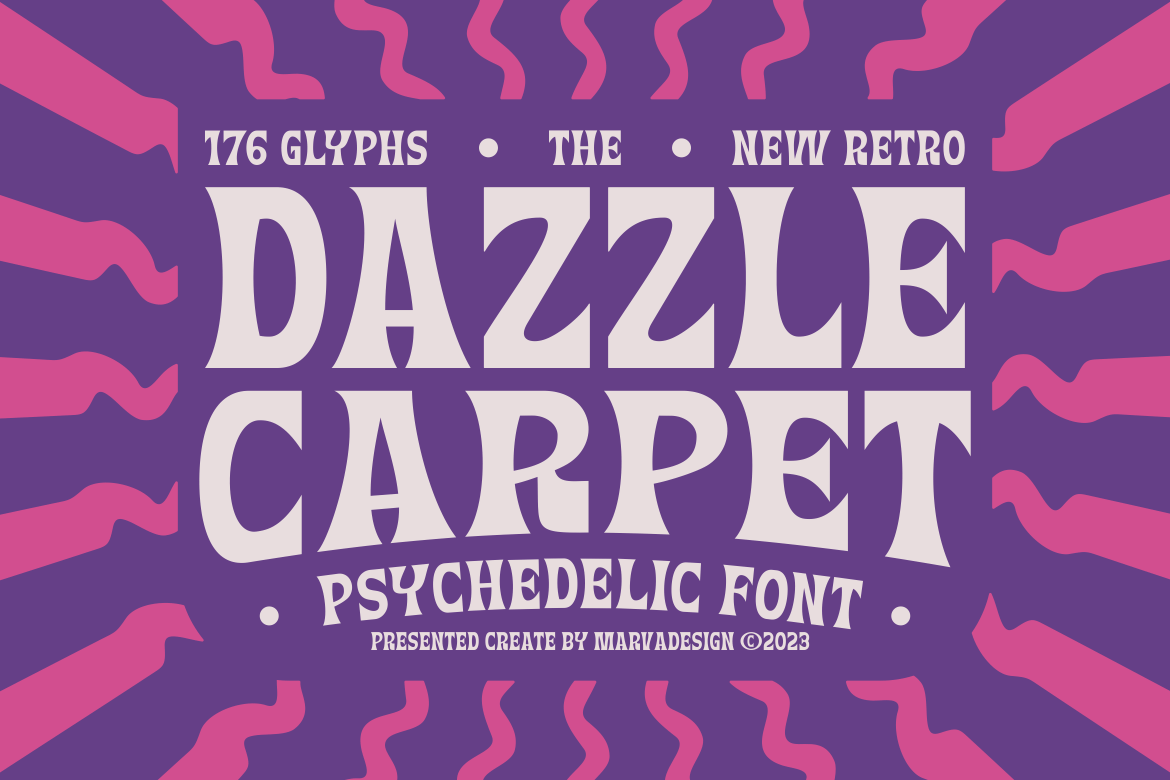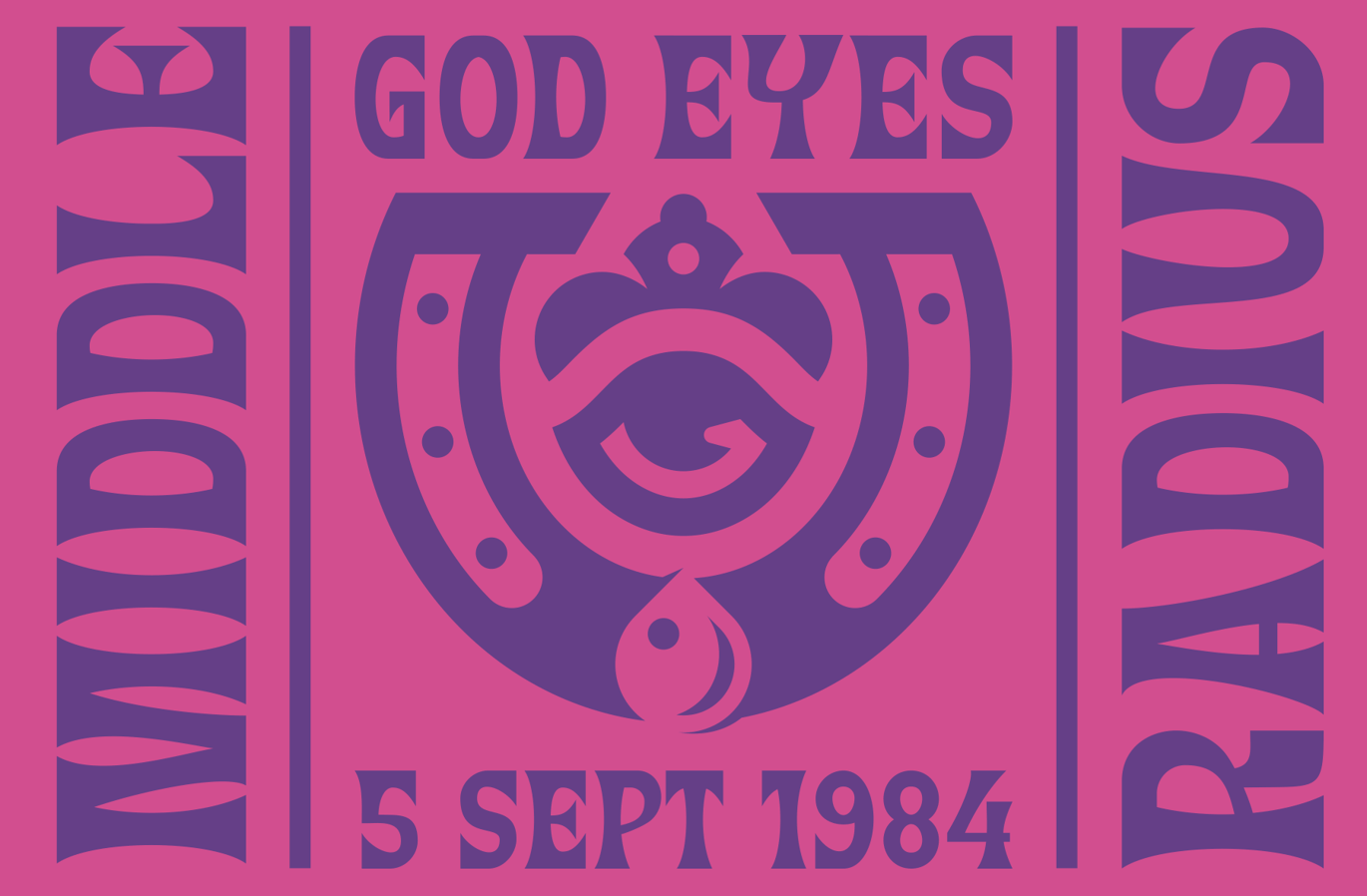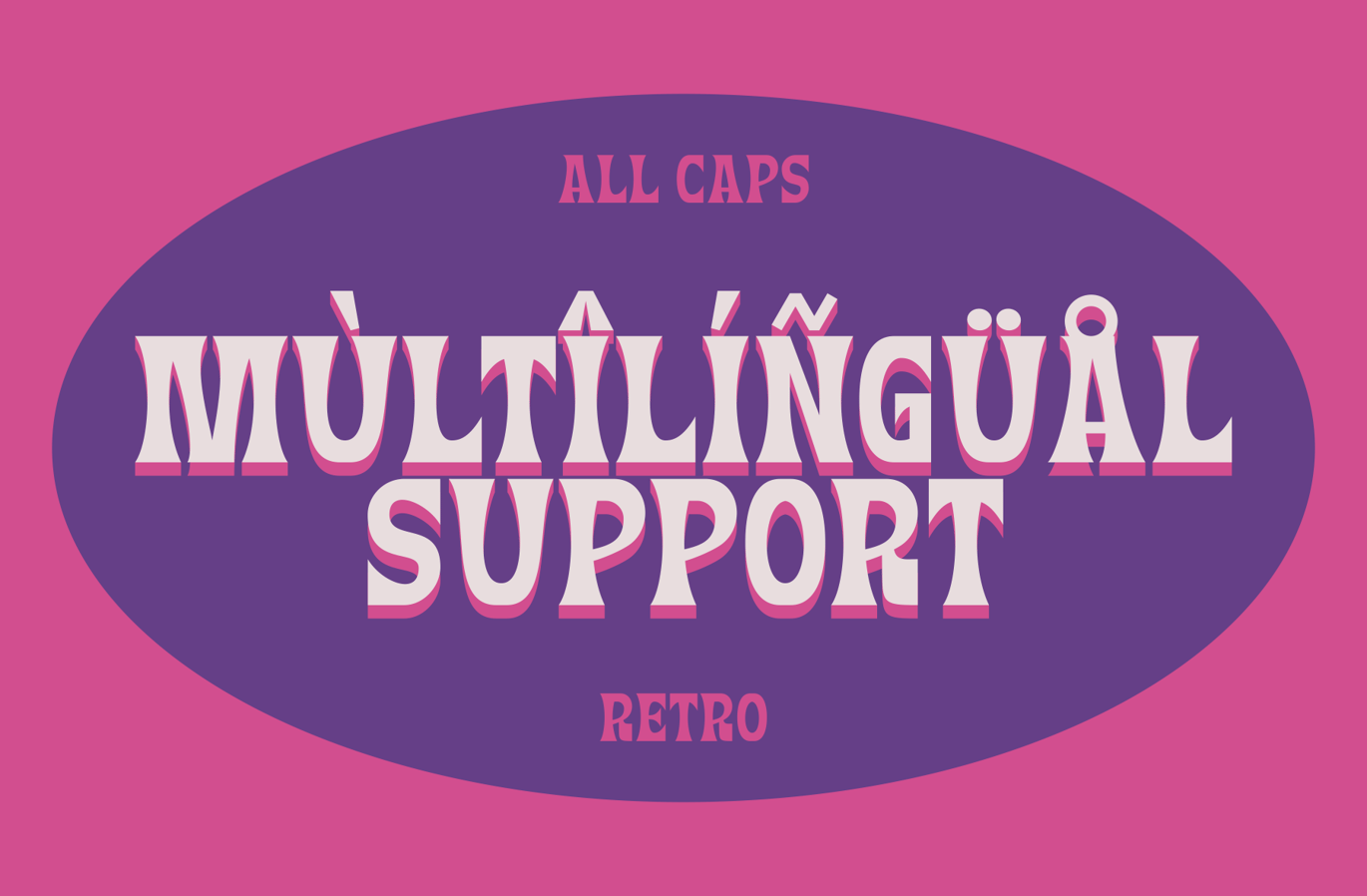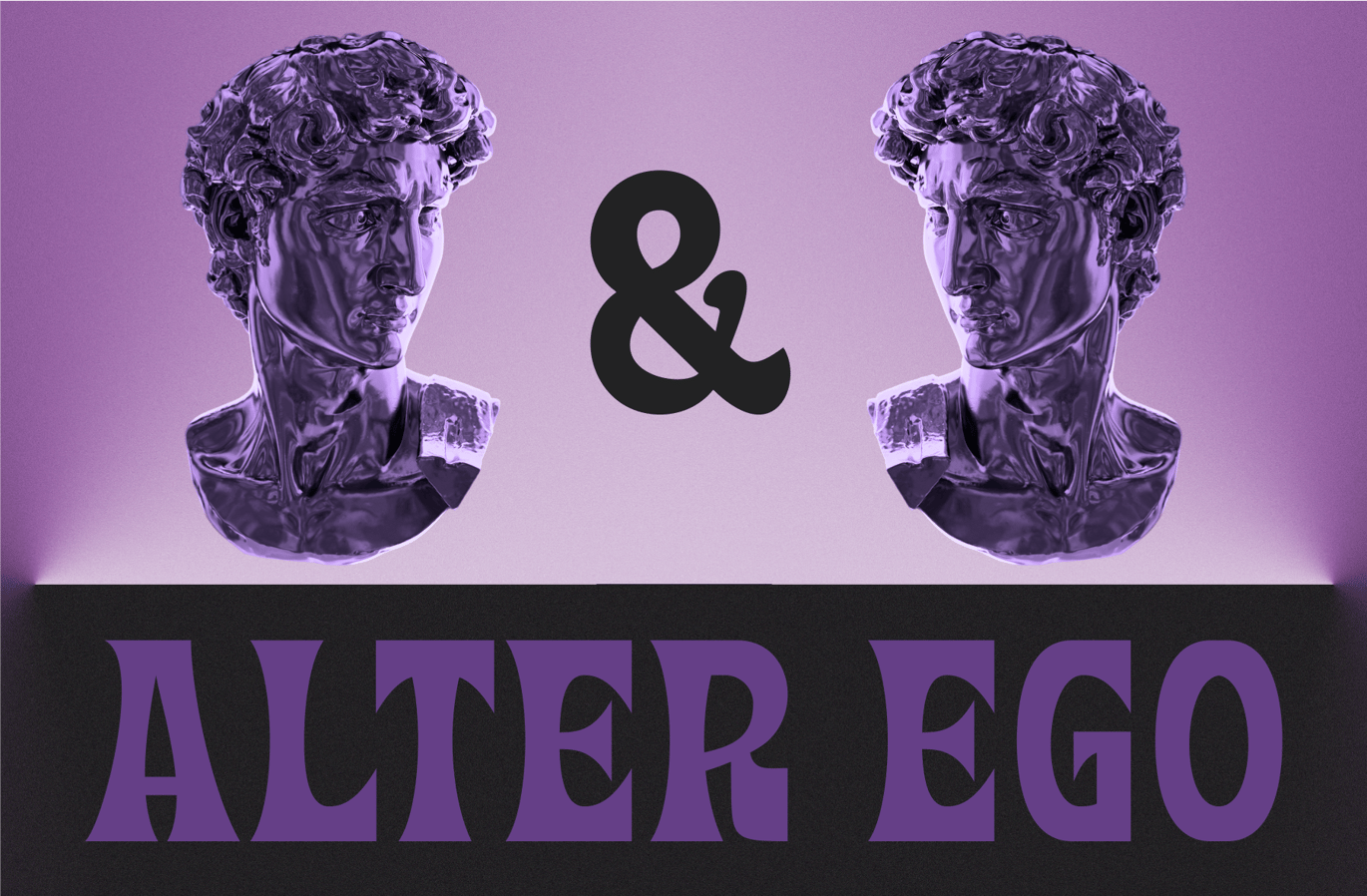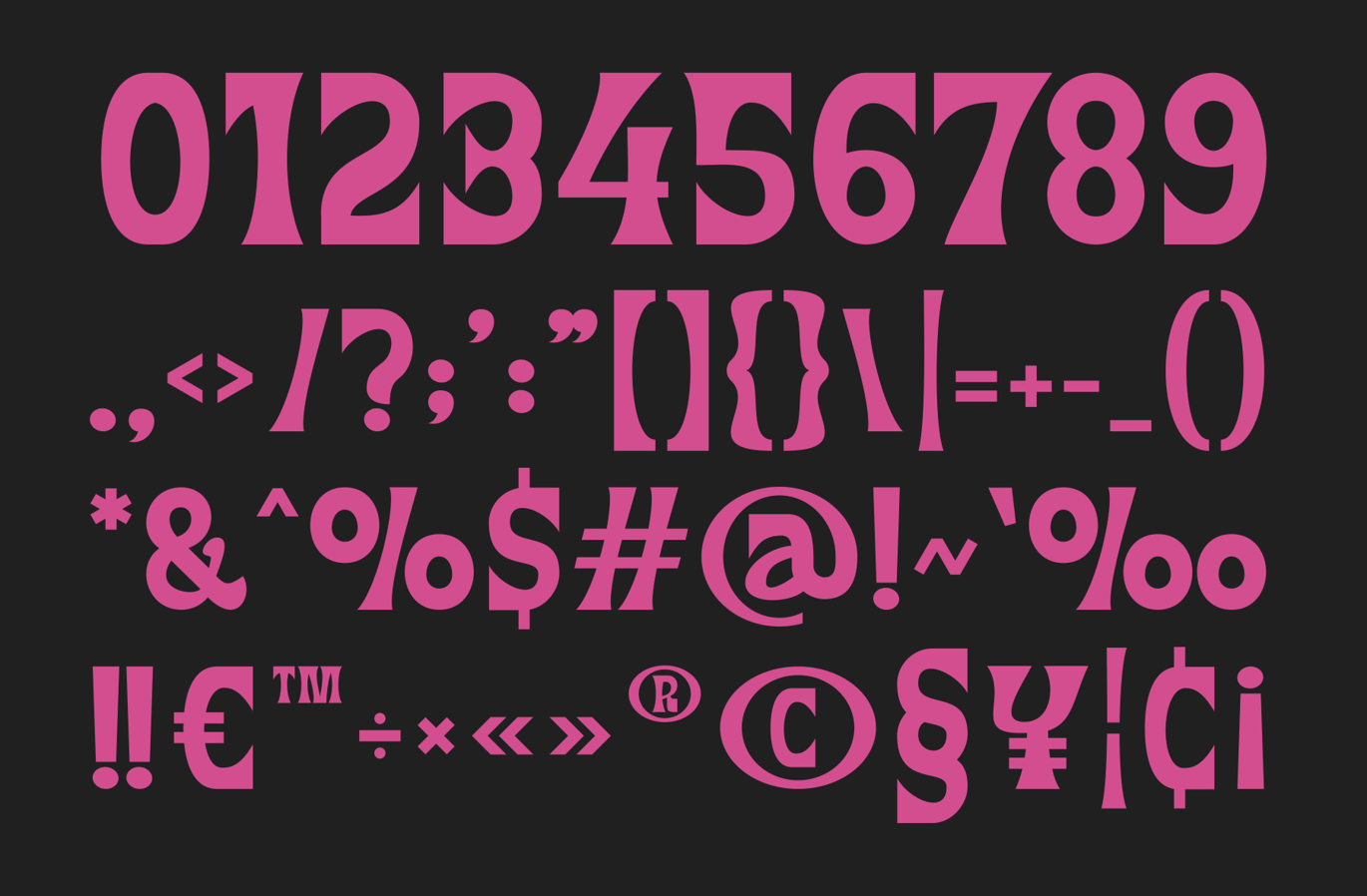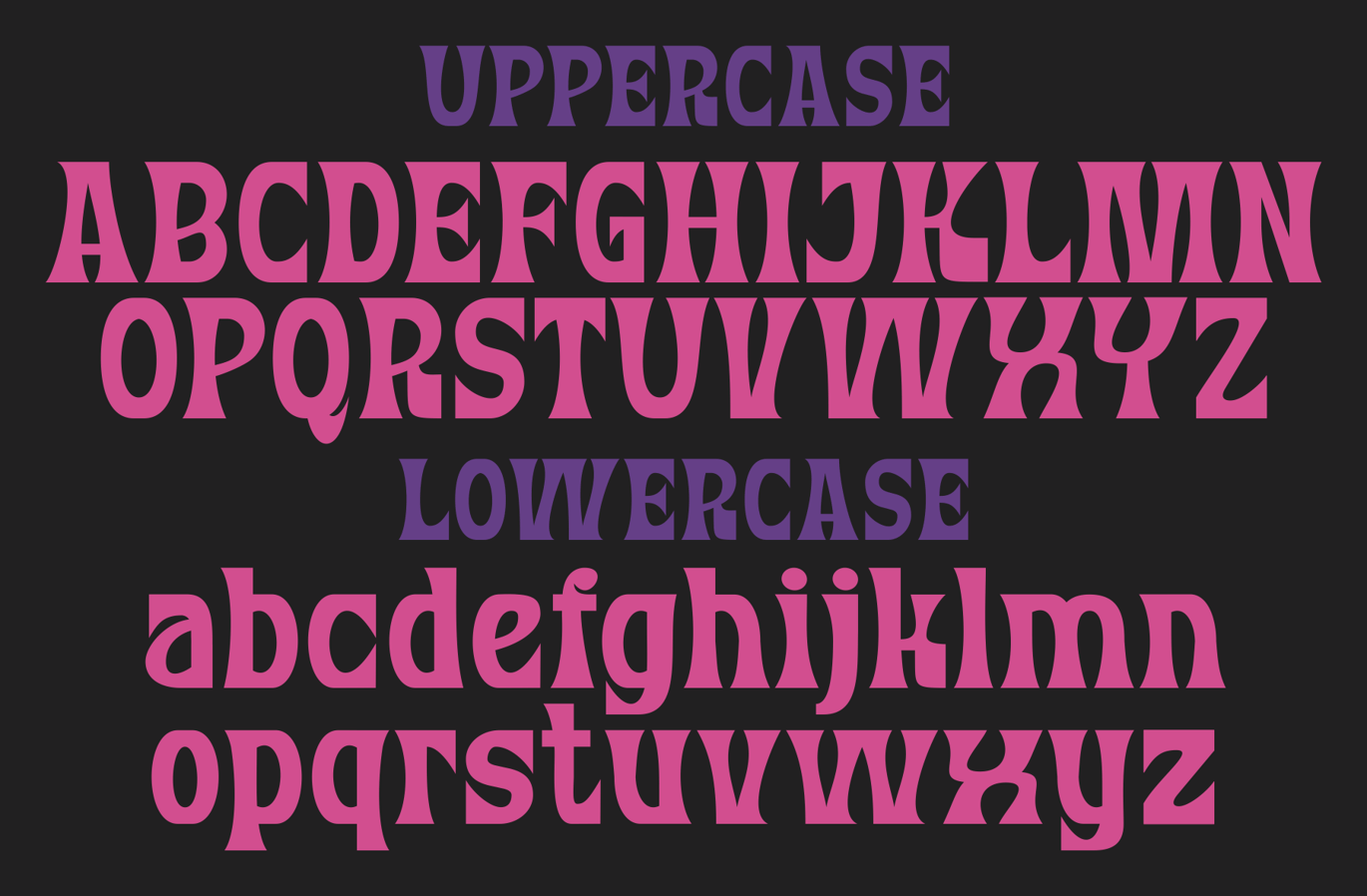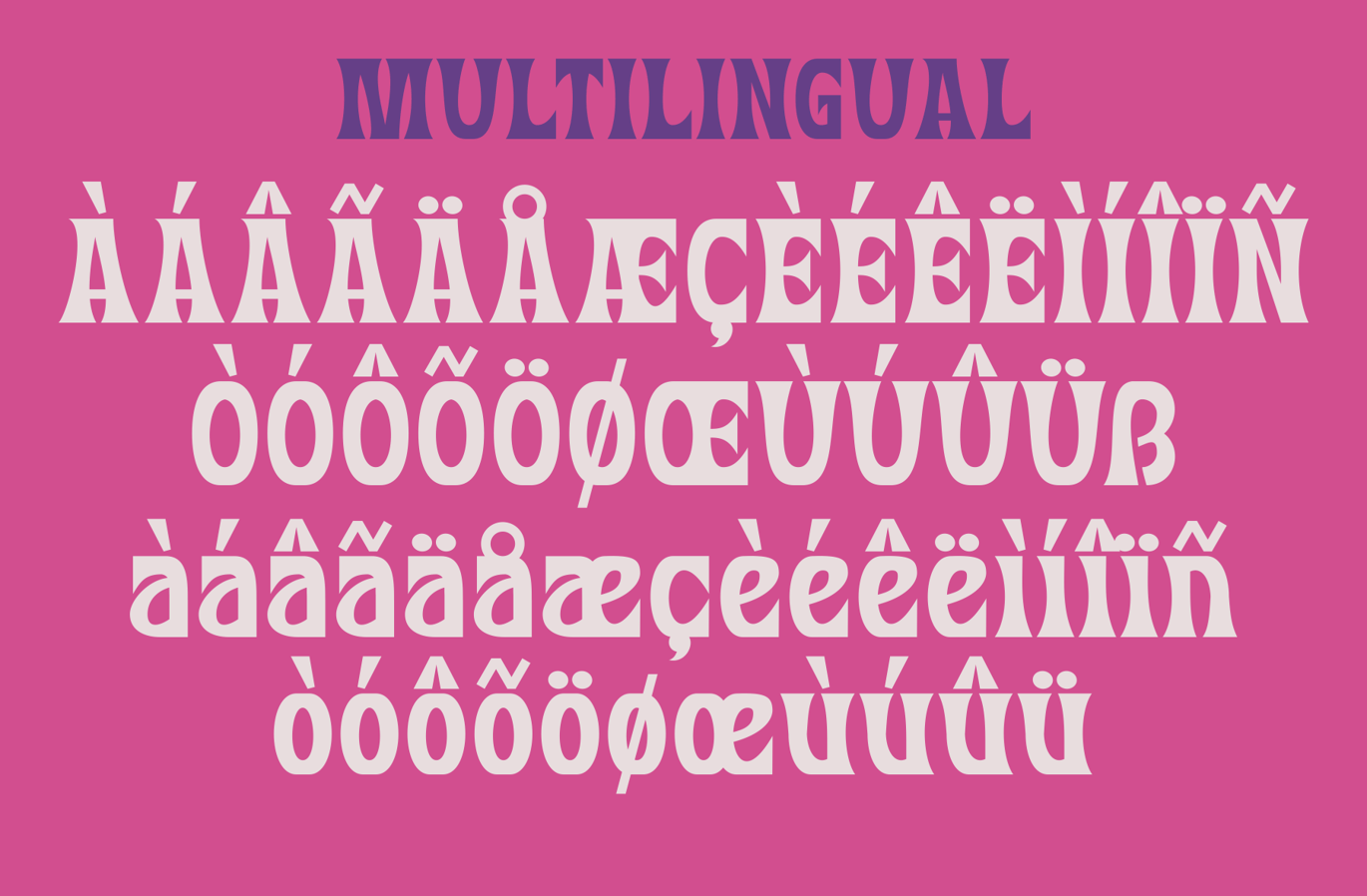
Dazzle Carpet – A Modern Psychedelic Font
Introducing our new product Dazzle Carpet Font – Modern Font
Dazzle Carpet Font – Modern Font is a bold and authentic display font. The font is suitable for any branding project like logo, Template Design, Product and many more. outstanding in a wide range of contexts.